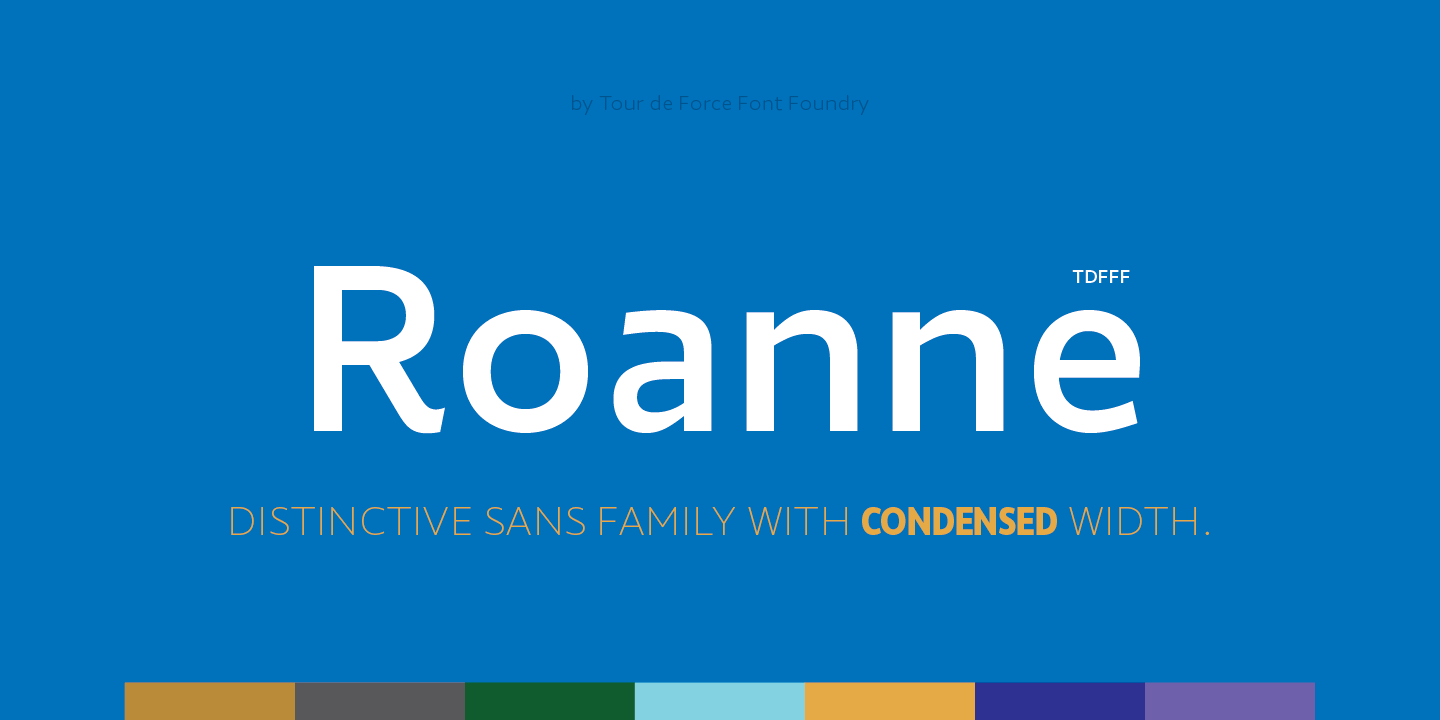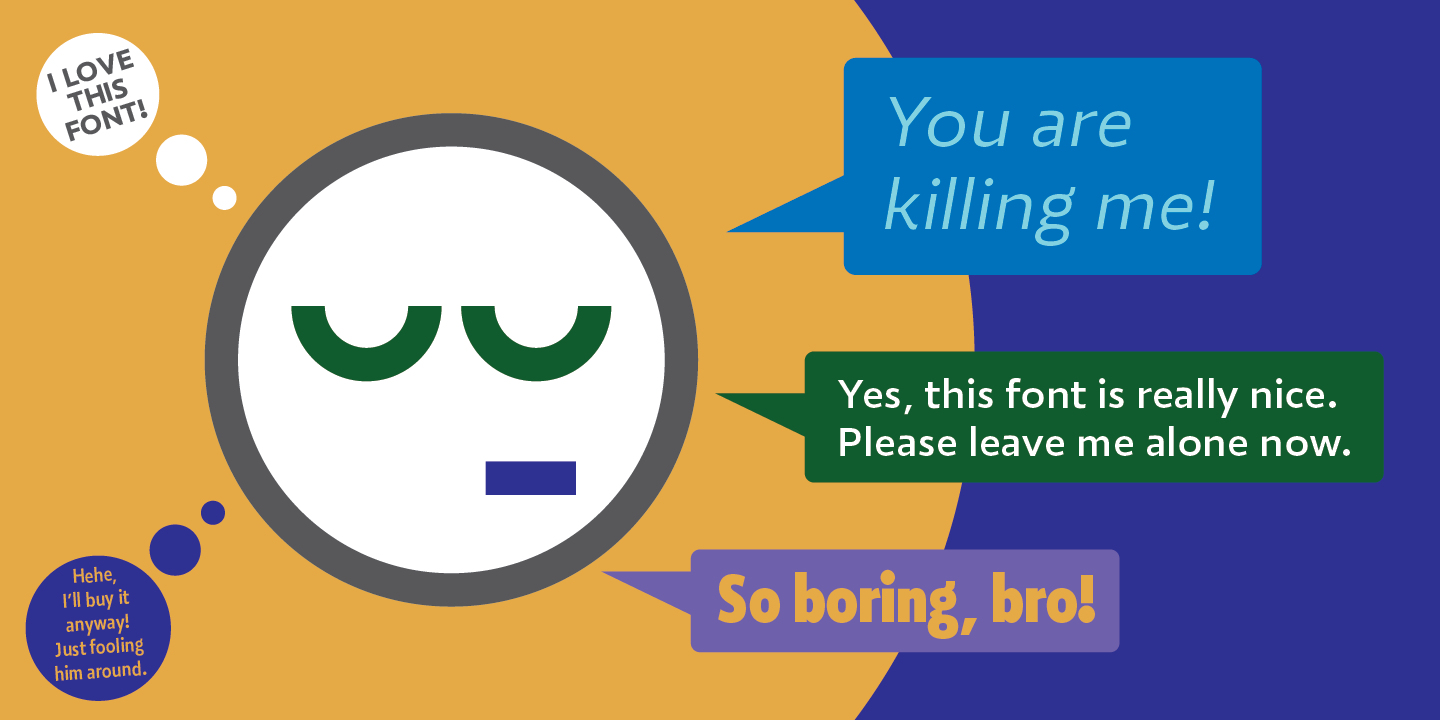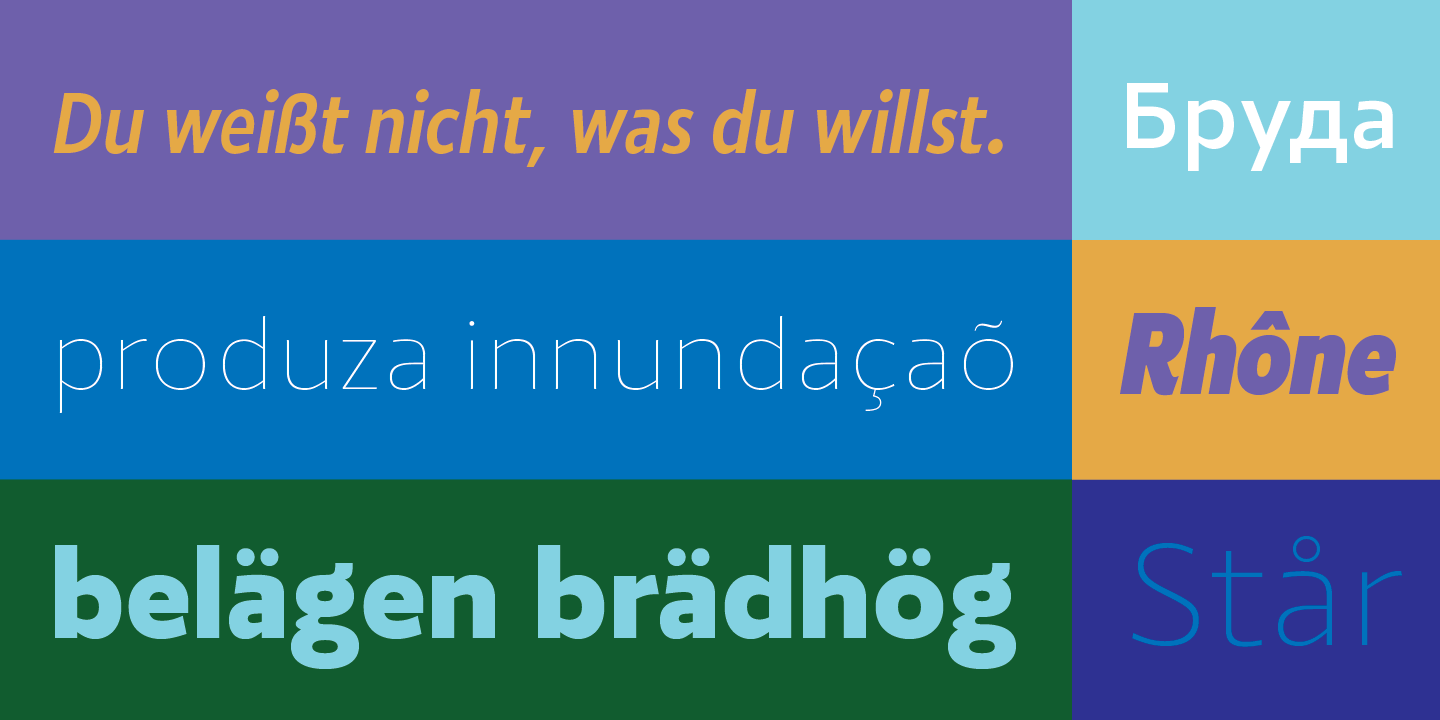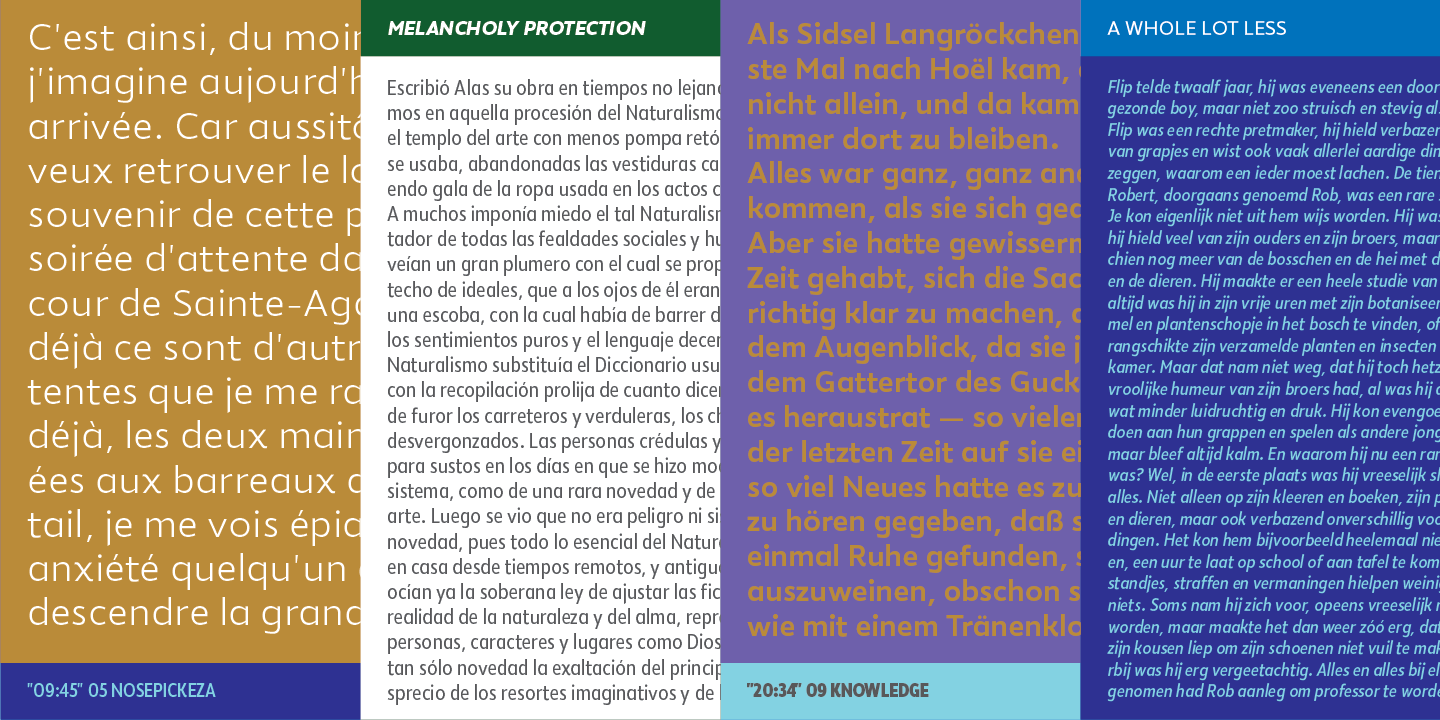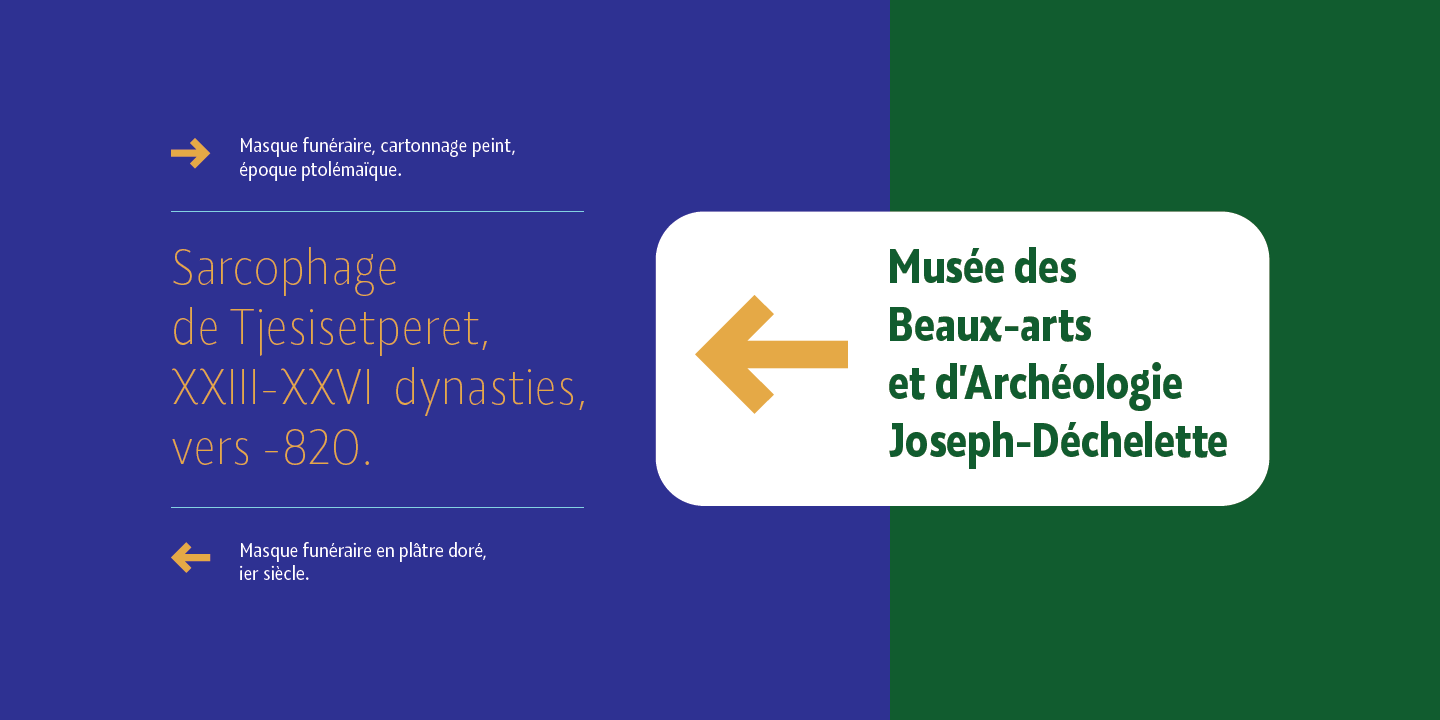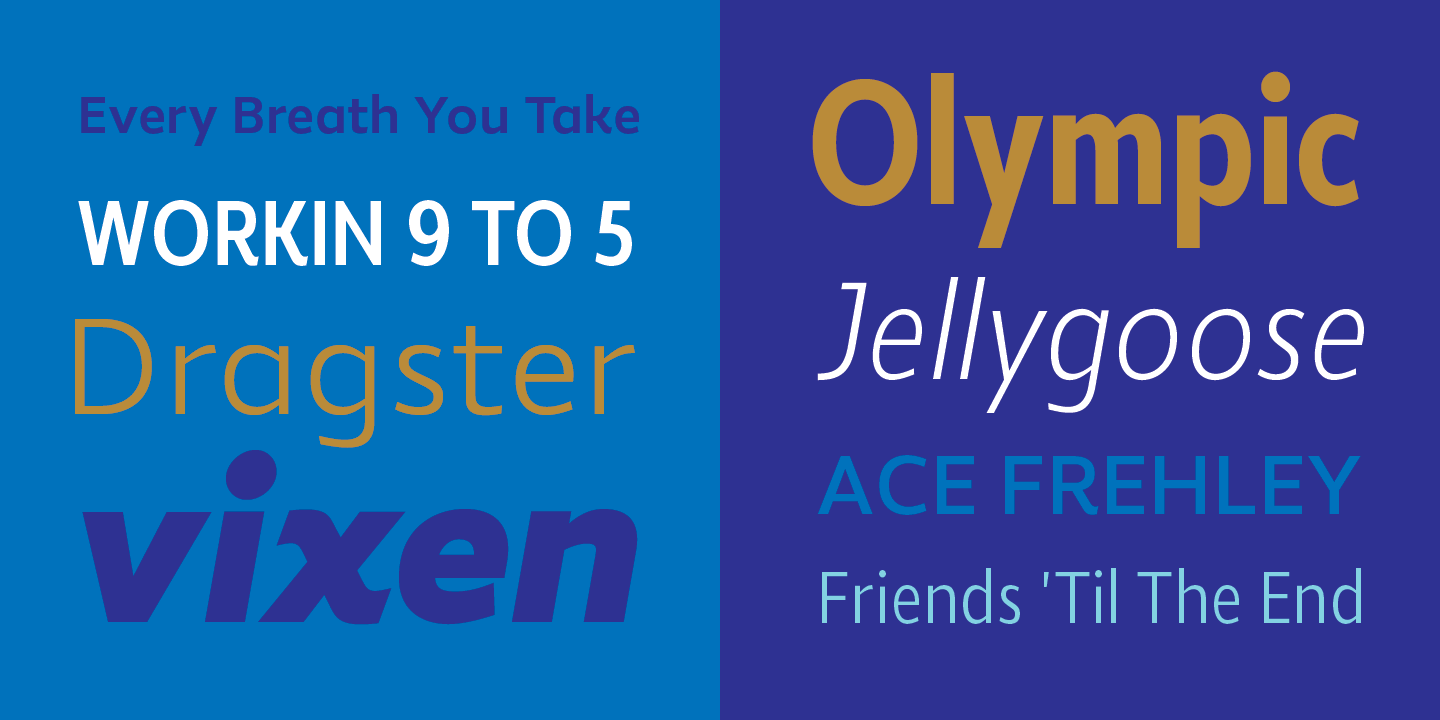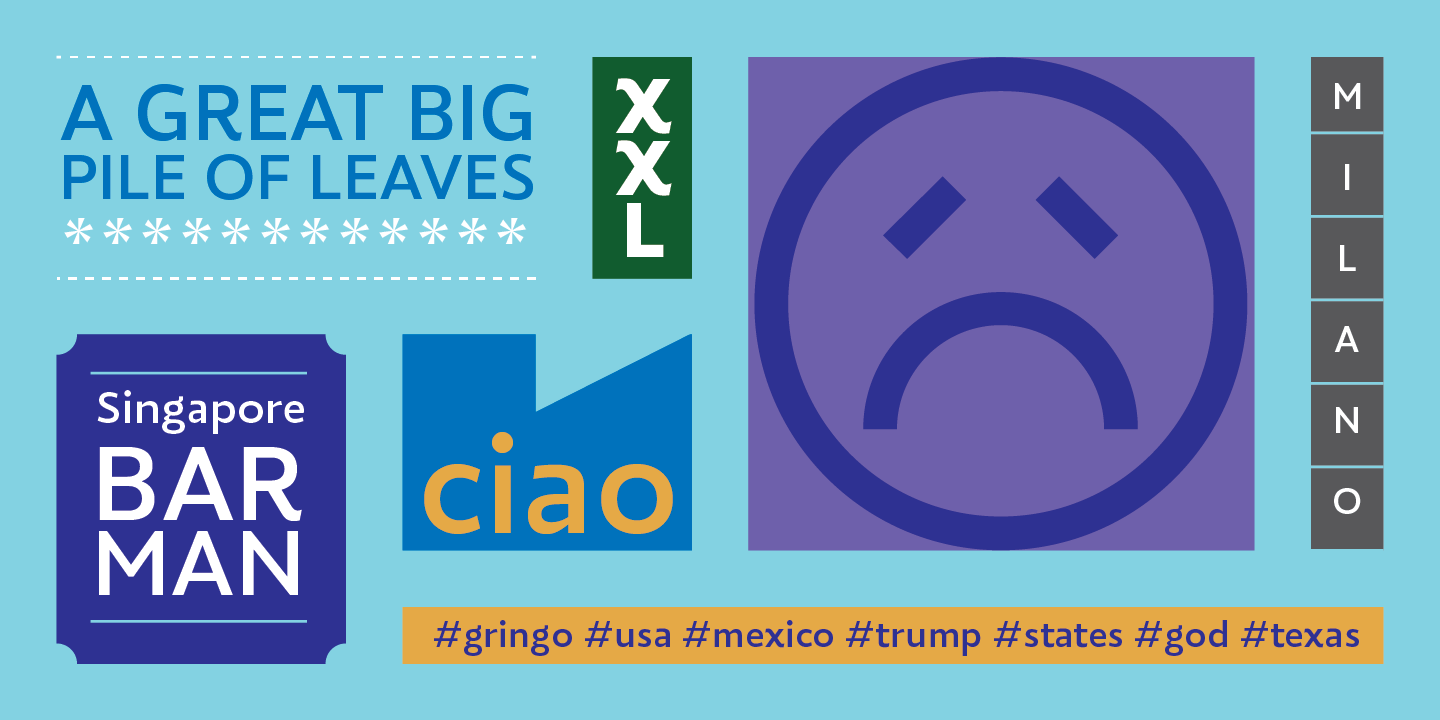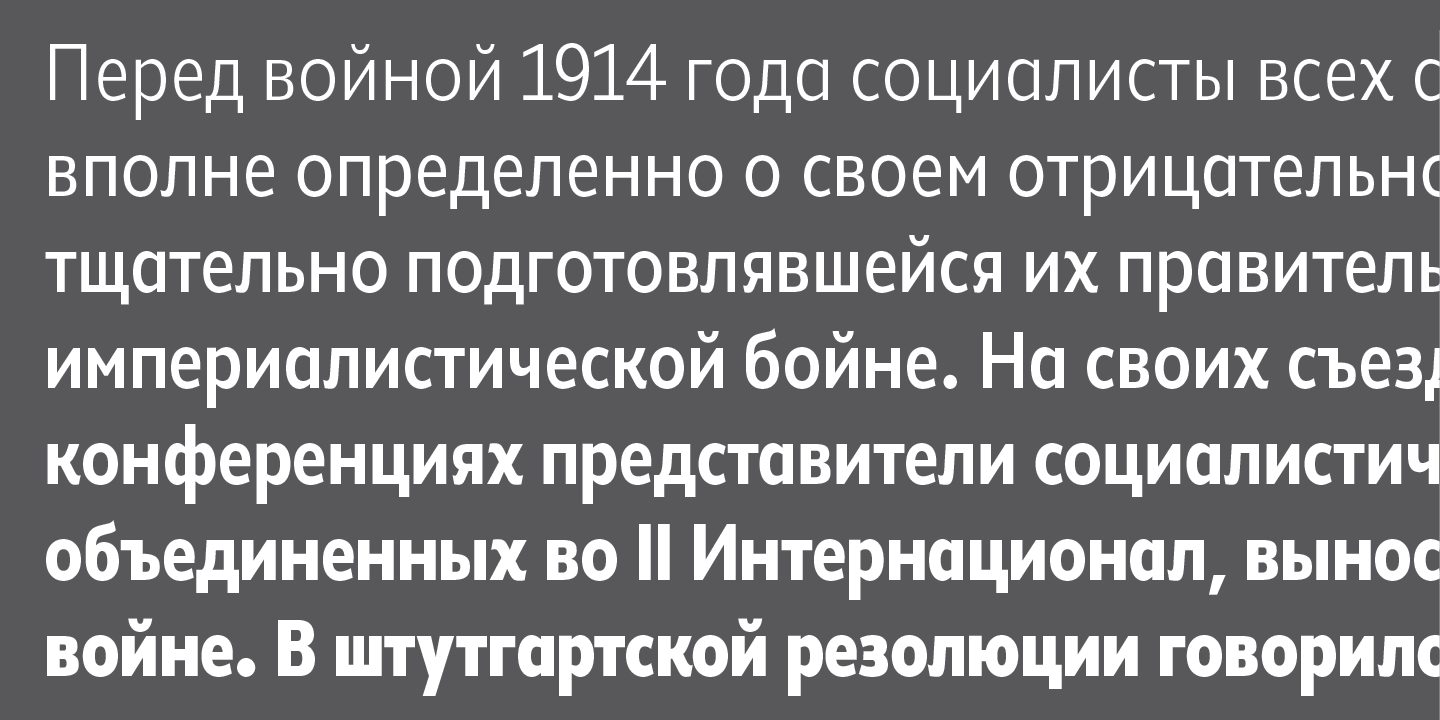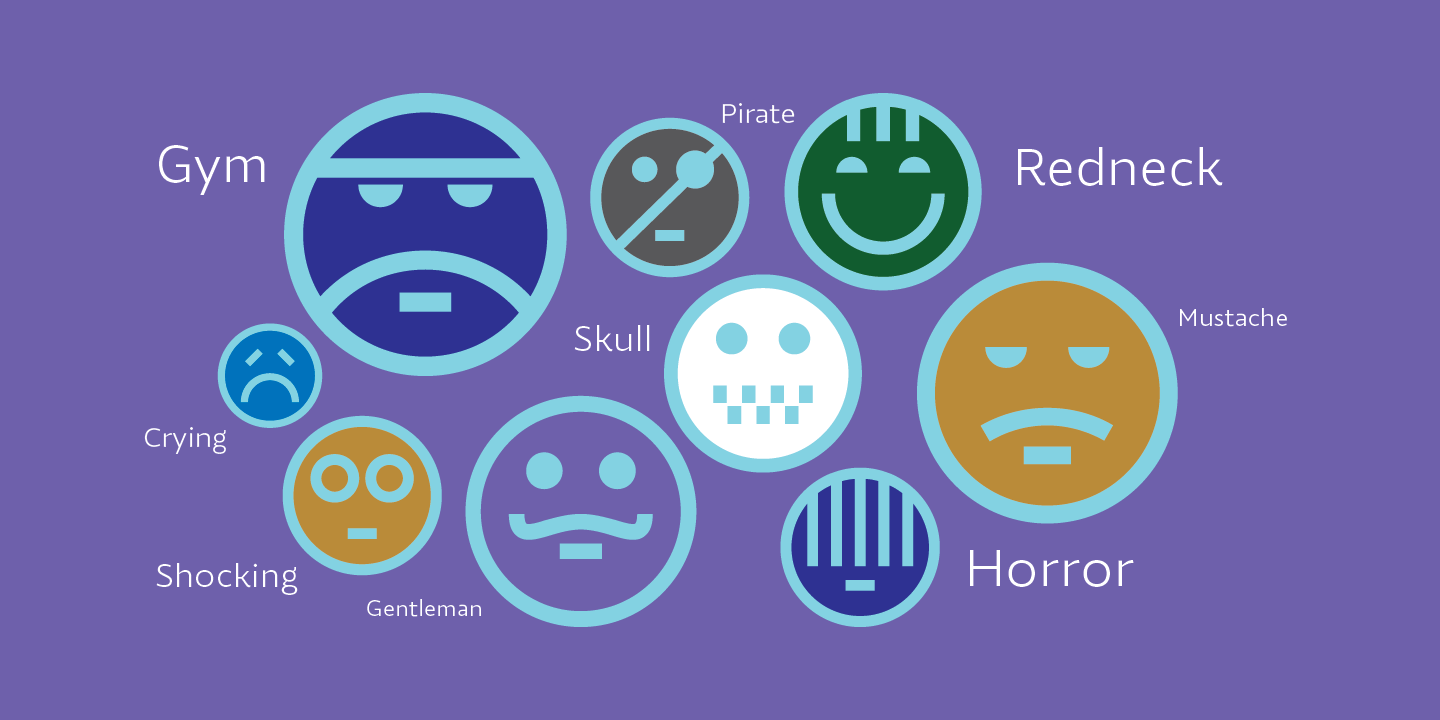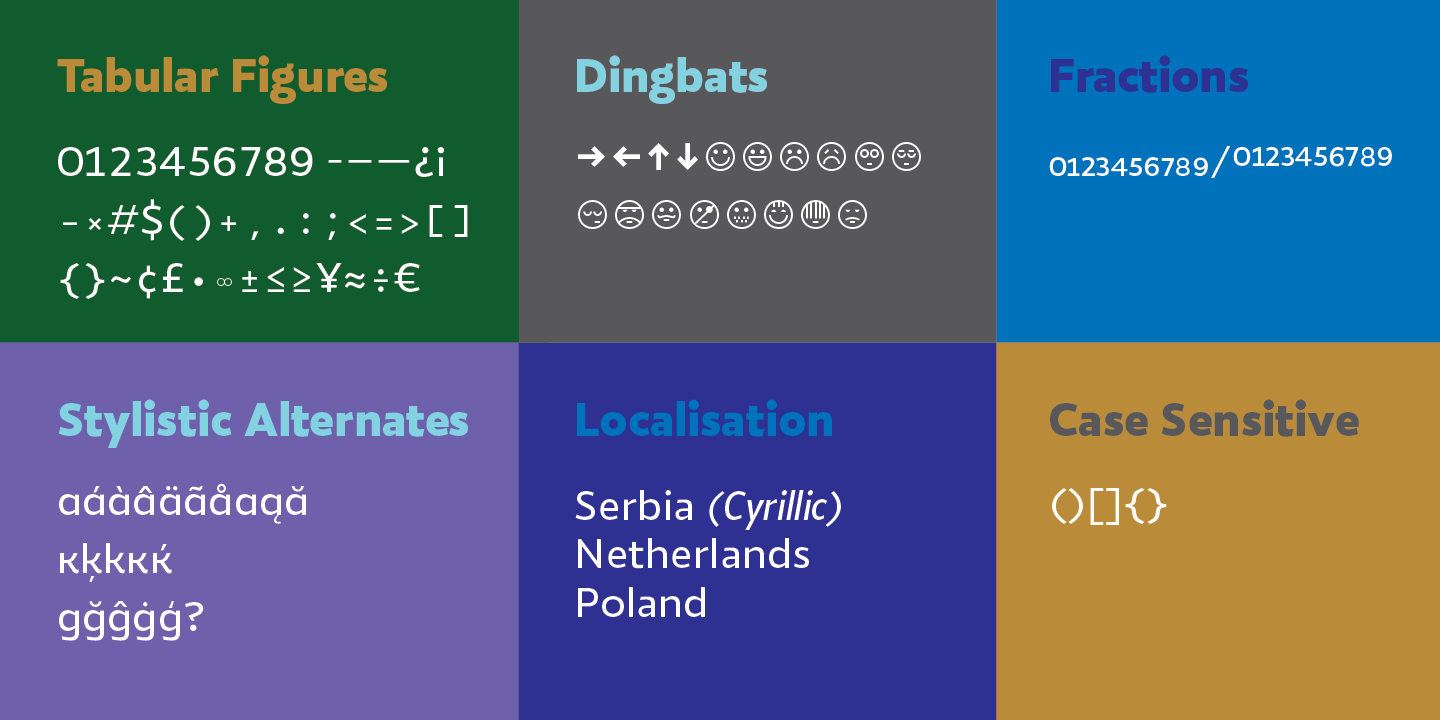
Roanne is a sans serif family named after a town in France. This font family contains 2 width variations: Normal and Condensed, and all together counts 44 font styles. Equipped with OpenType features (Tabular Figures, Fractions, Stylistic Alternates, Localization for Serbia, Poland and the Netherlands, Case Sensitive brackets) for extended Latin and Cyrillic character set with a small charming set of Dingbats.